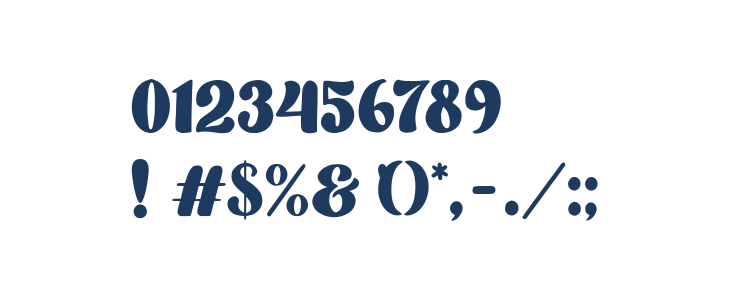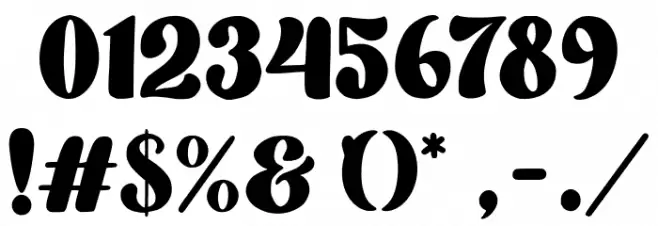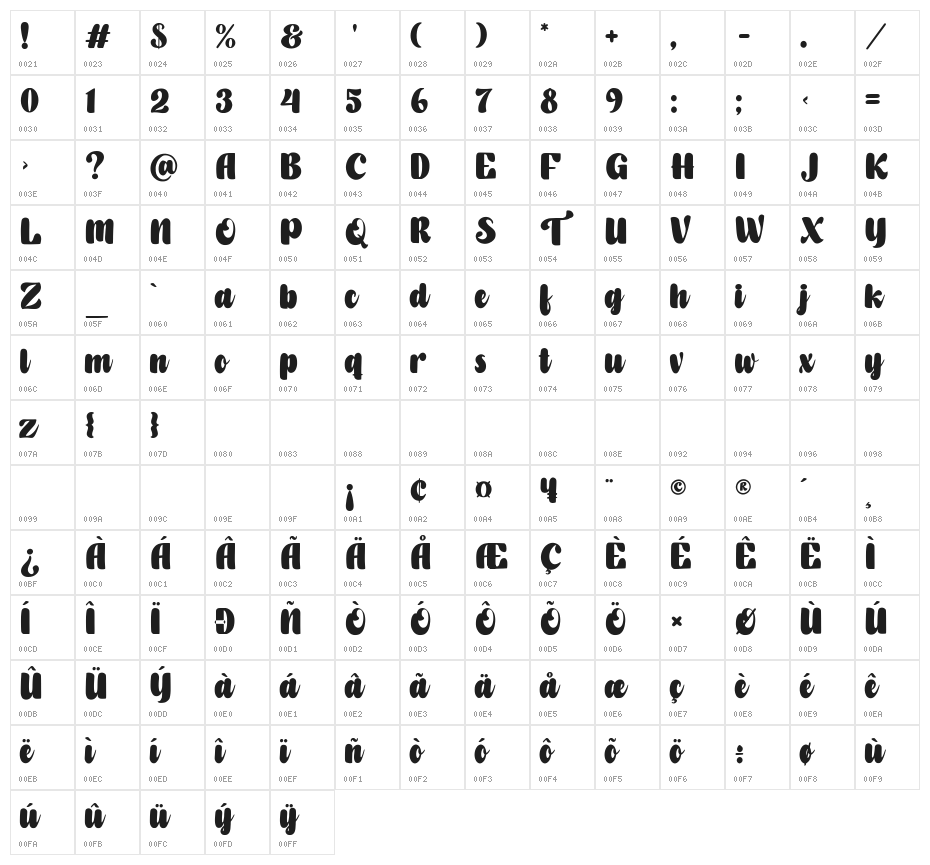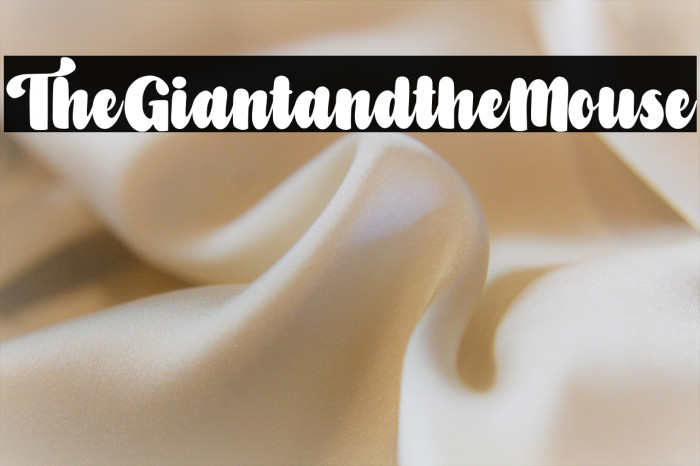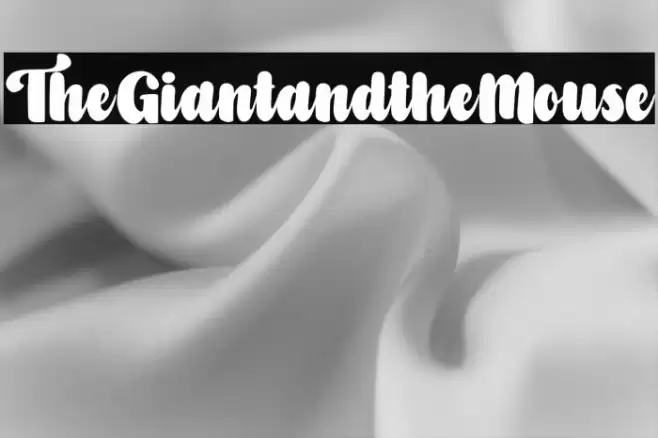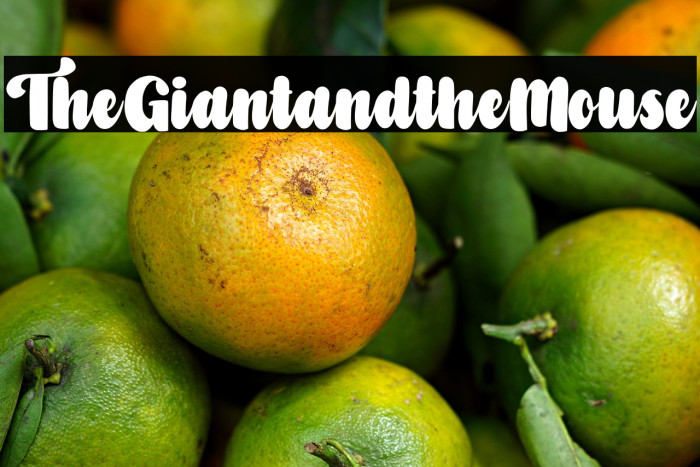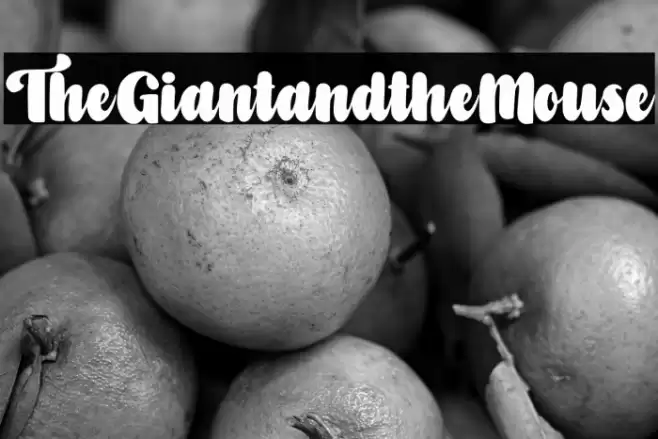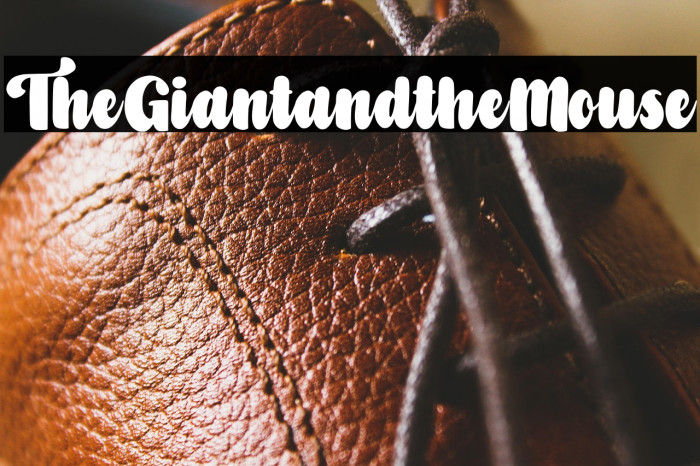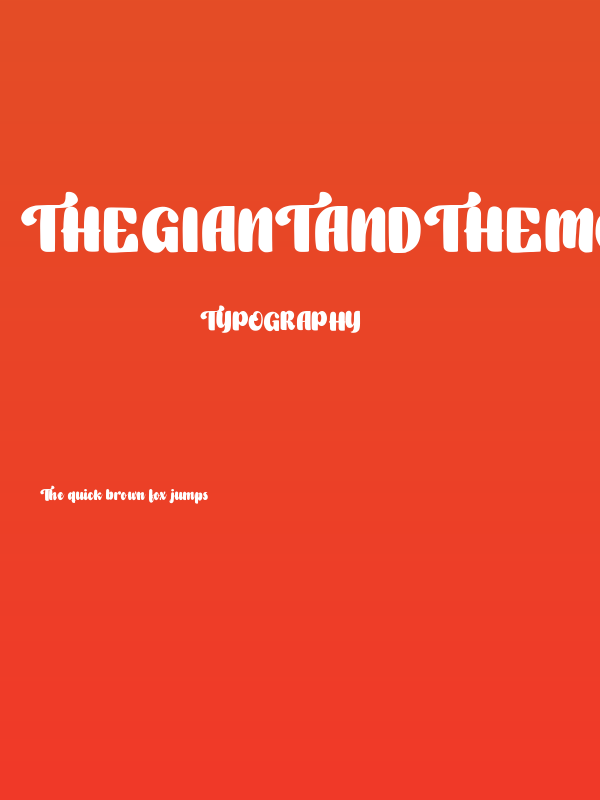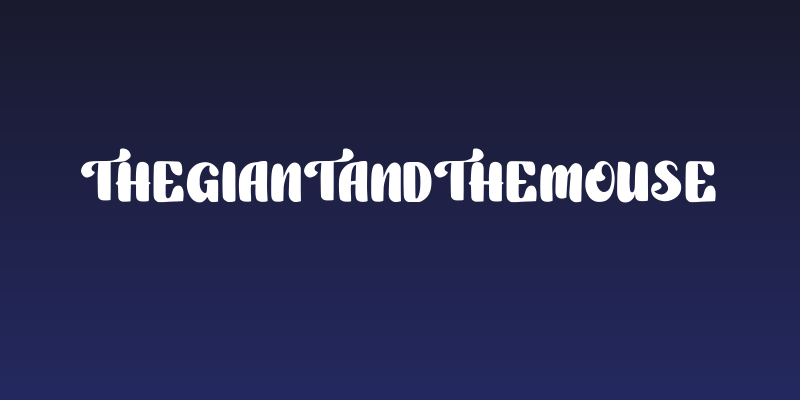
TheGiantandtheMouse Font
TheGiantandtheMouse Description
This font features a bold and playful style with a strong presence. The characters are rounded and have a whimsical, almost cartoon-like appearance, making them stand out with their thick strokes and smooth curves. The uppercase and lowercase letters maintain a consistent weight, providing a cohesive look across the alphabet. The numbers and special characters follow the same design principles, ensuring uniformity. This font's unique style is both eye-catching and approachable, suitable for a variety of creative applications.
| Proposed Projects | Ideal for children's books, playful branding, posters, and creative invitations. |